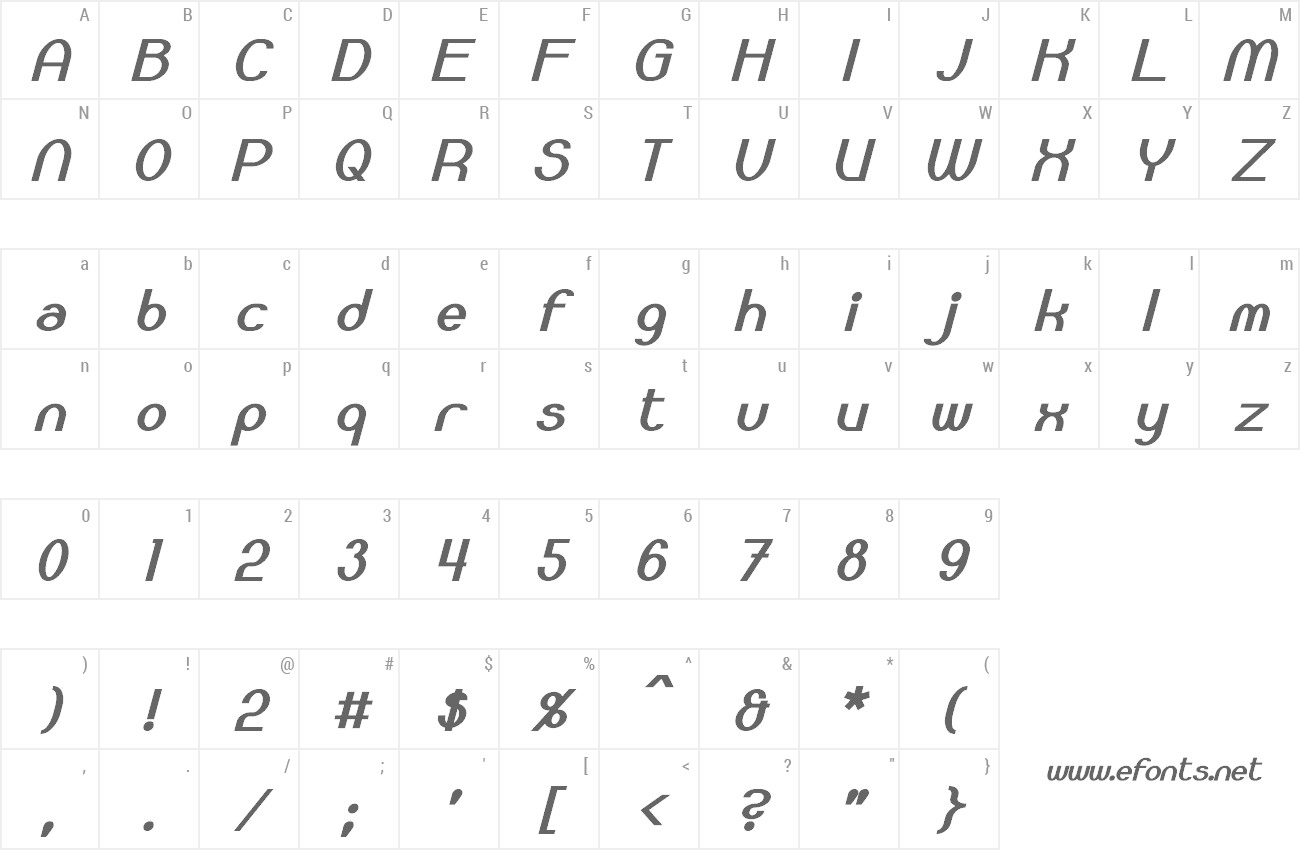
| Font name: | Bloomingworth |
| Author: | Pixel Sagas |
| Note by Pixel Sagas | |
| This art-deco typeface is based on some old advertising copy for a series of retail chain stores. Includes full alphabet, extended punctuation, euro. Includes bold and italic version. |